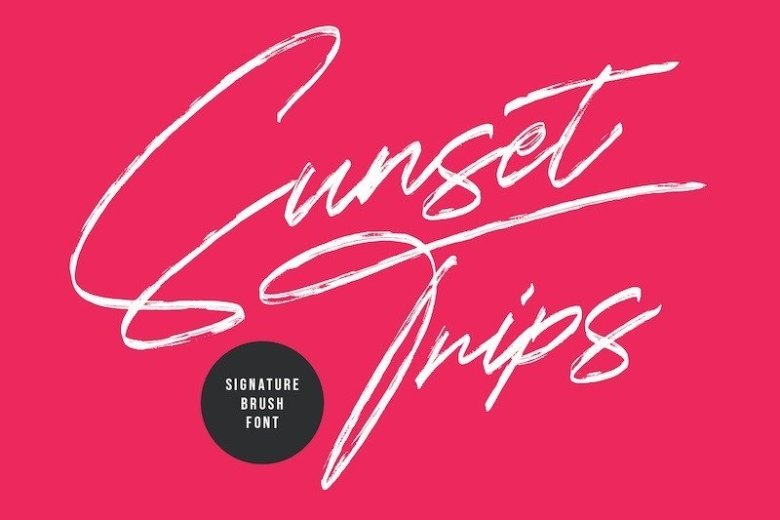
Sunset Trips Brush Script Font
Introducing. Sunset Trips Brush Script Font is a textured Signature typeface. this is stylish brush signature font with a modern touch. With swift strokes and authentic dry textures, it’s an irresistibly charismatic & confident font choice for a range of design projects.
“Sunset Trips” is perfectly suited to signature, stationery, logo, typography quotes, magazine or book cover, website header, clothing, branding, packaging design and more. This font is free for PERSONAL USE. Link to purchase full version and commercial license : HERE